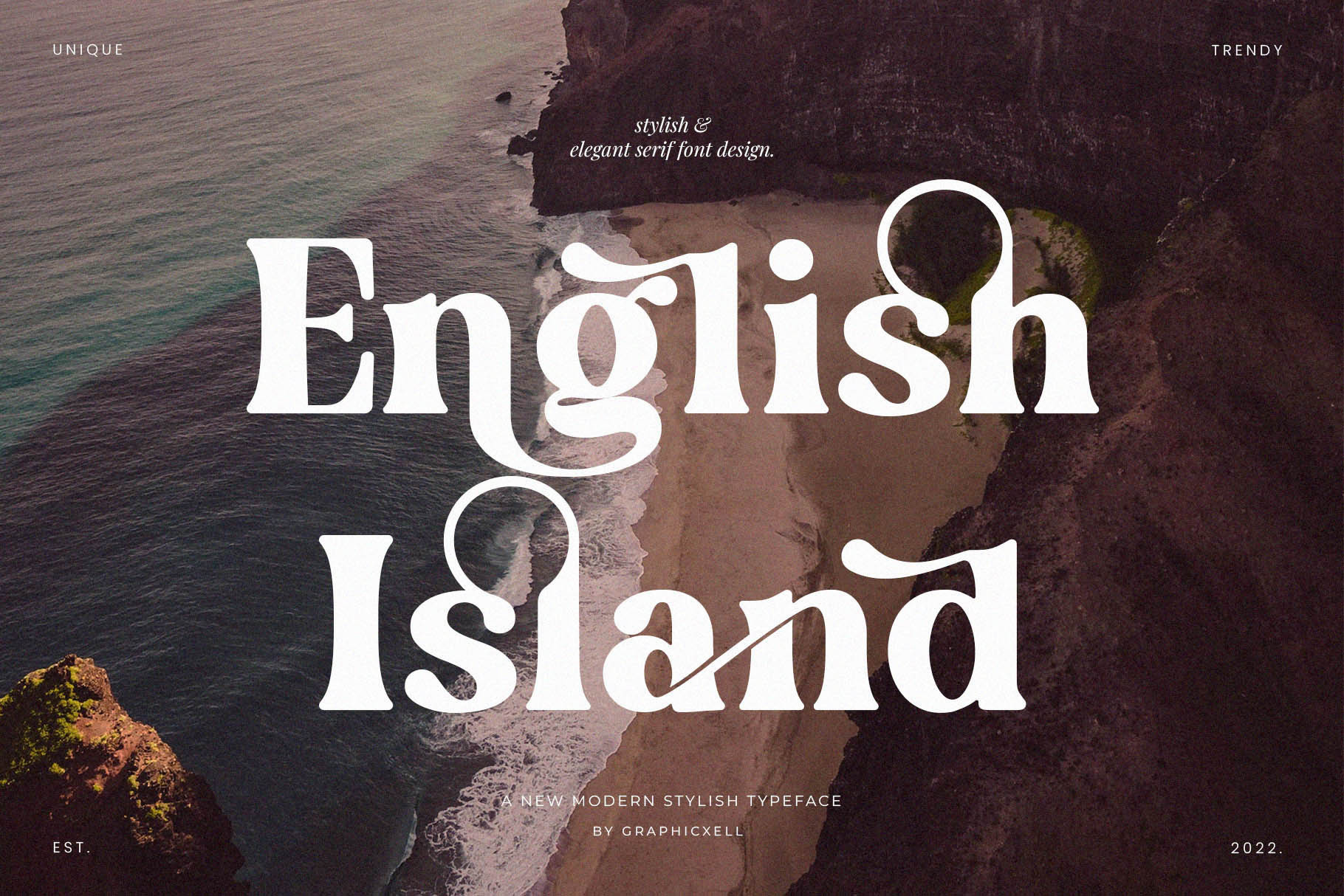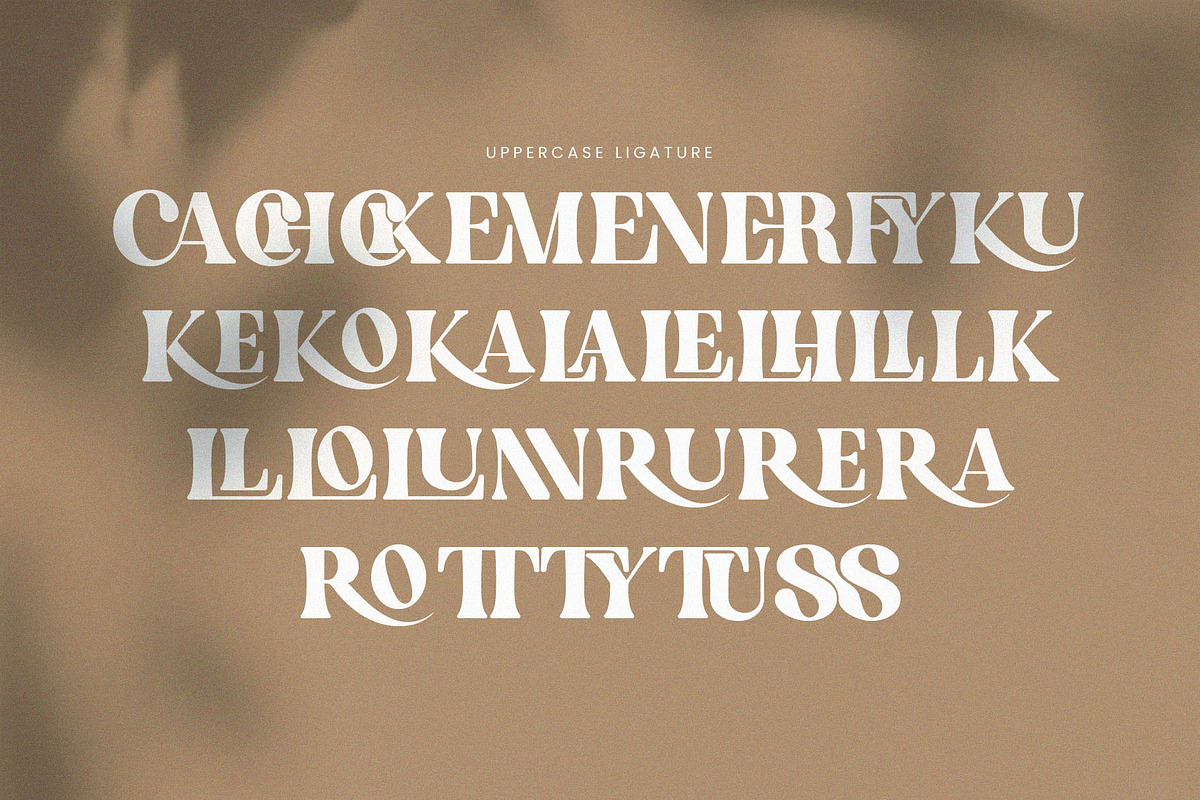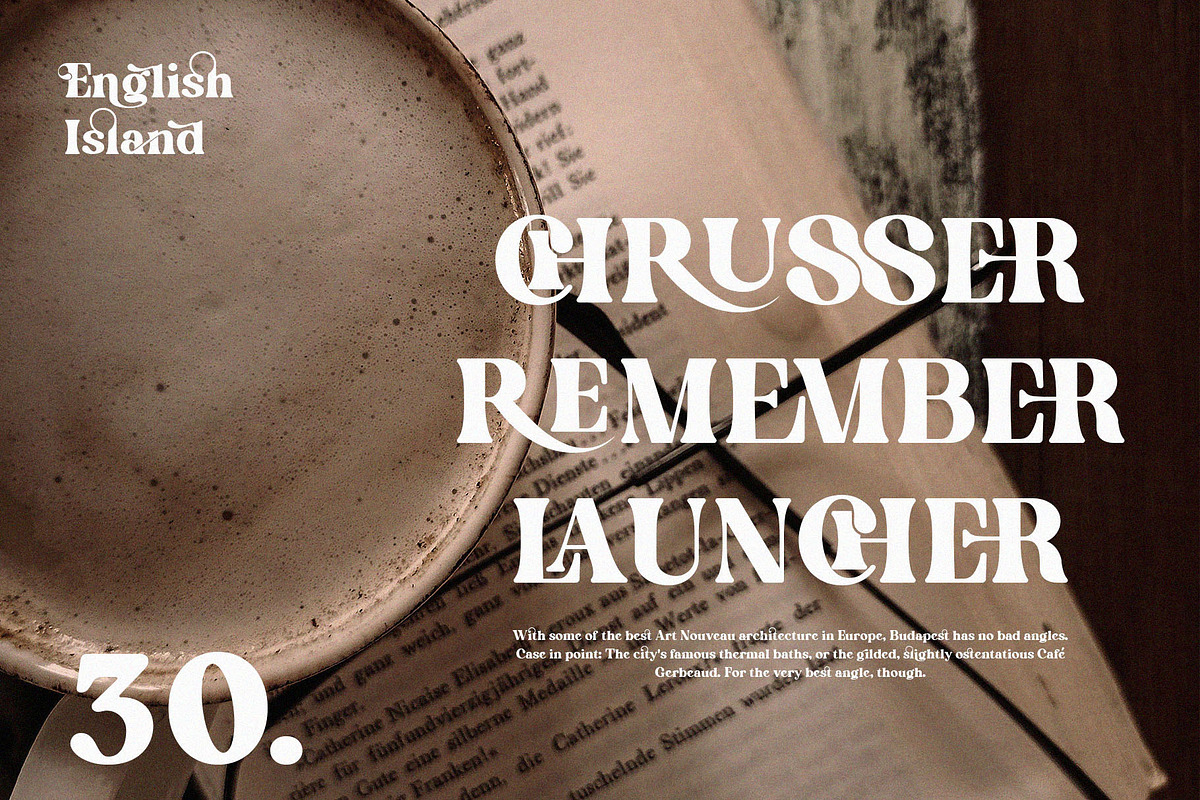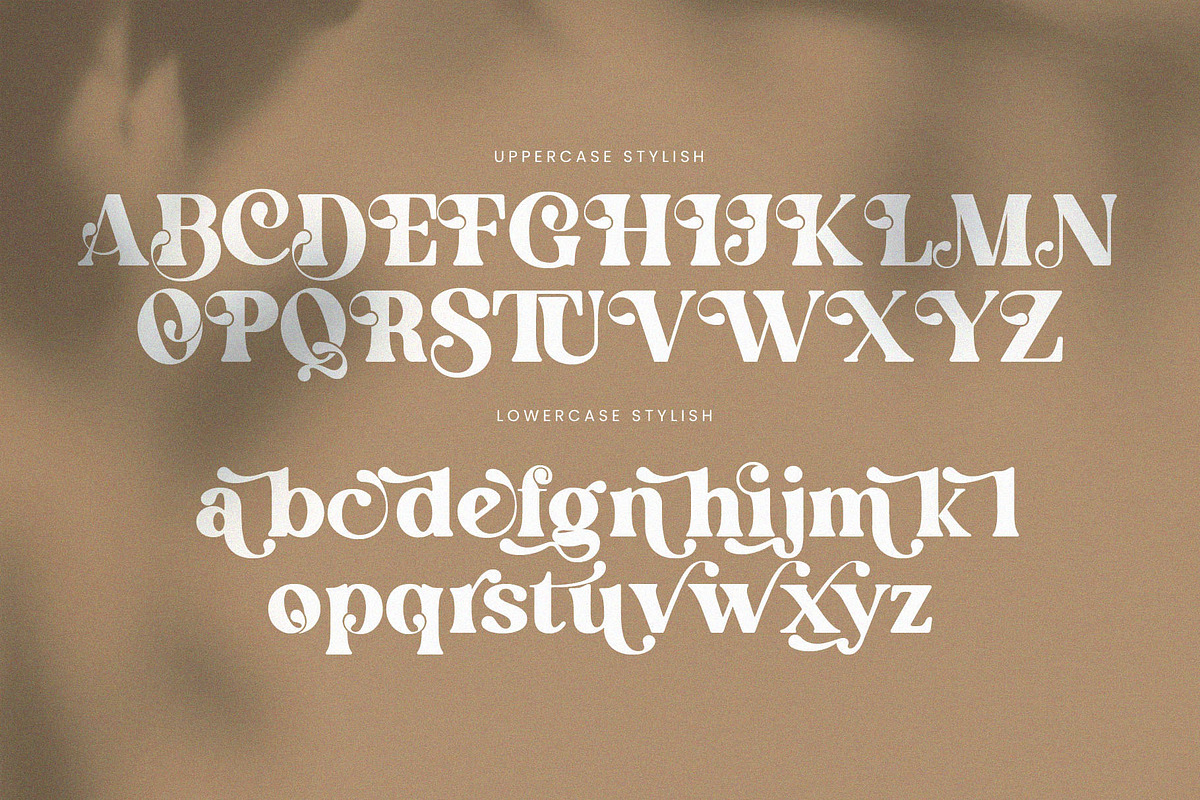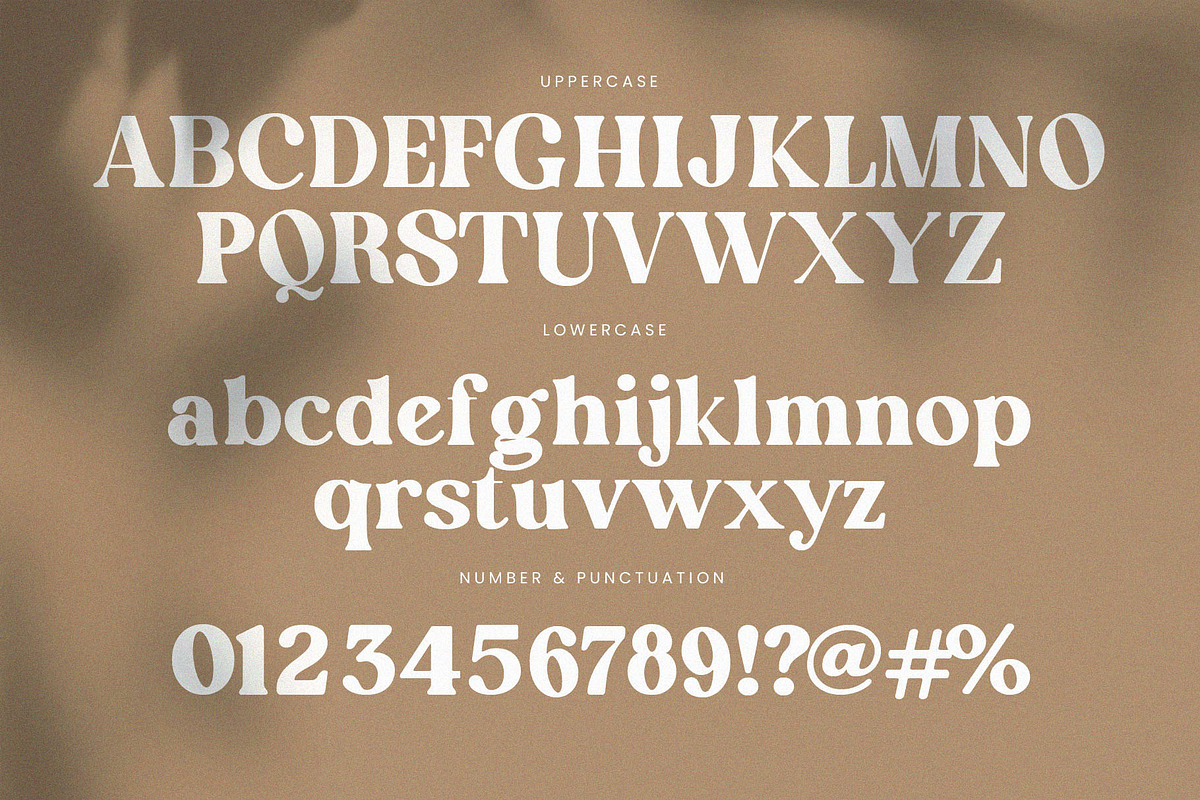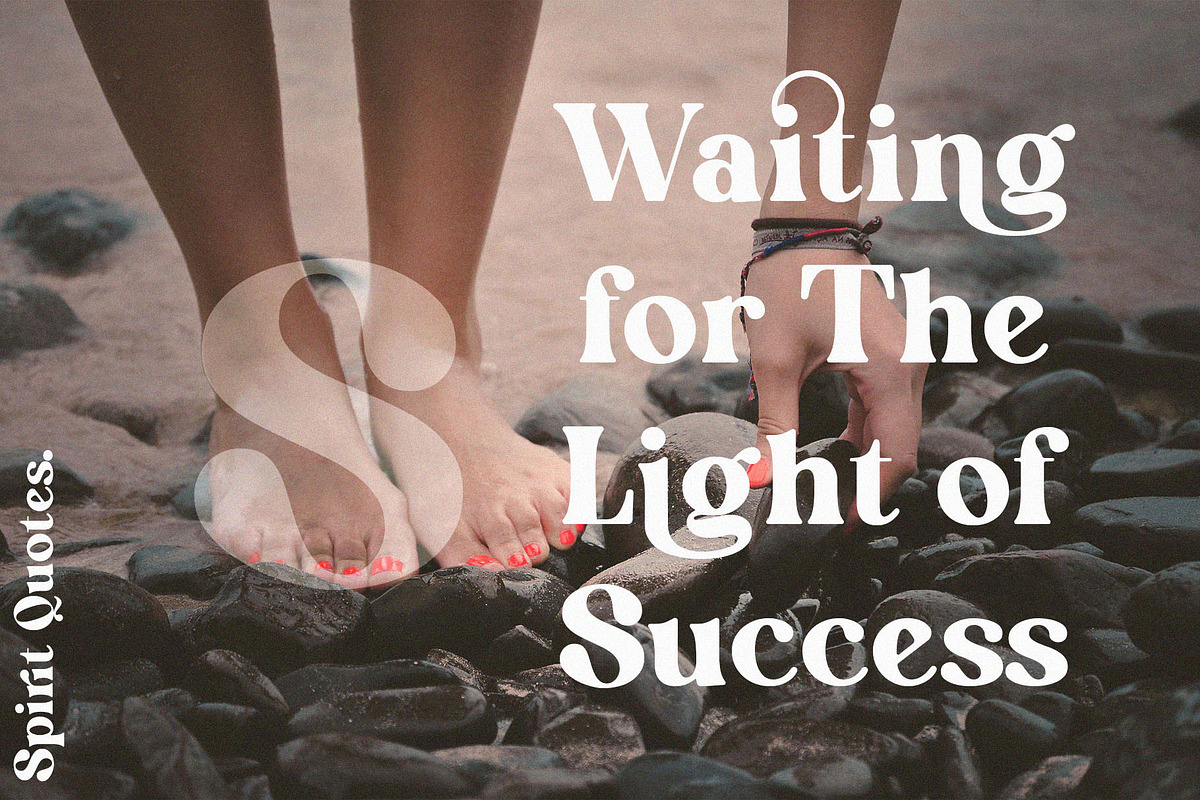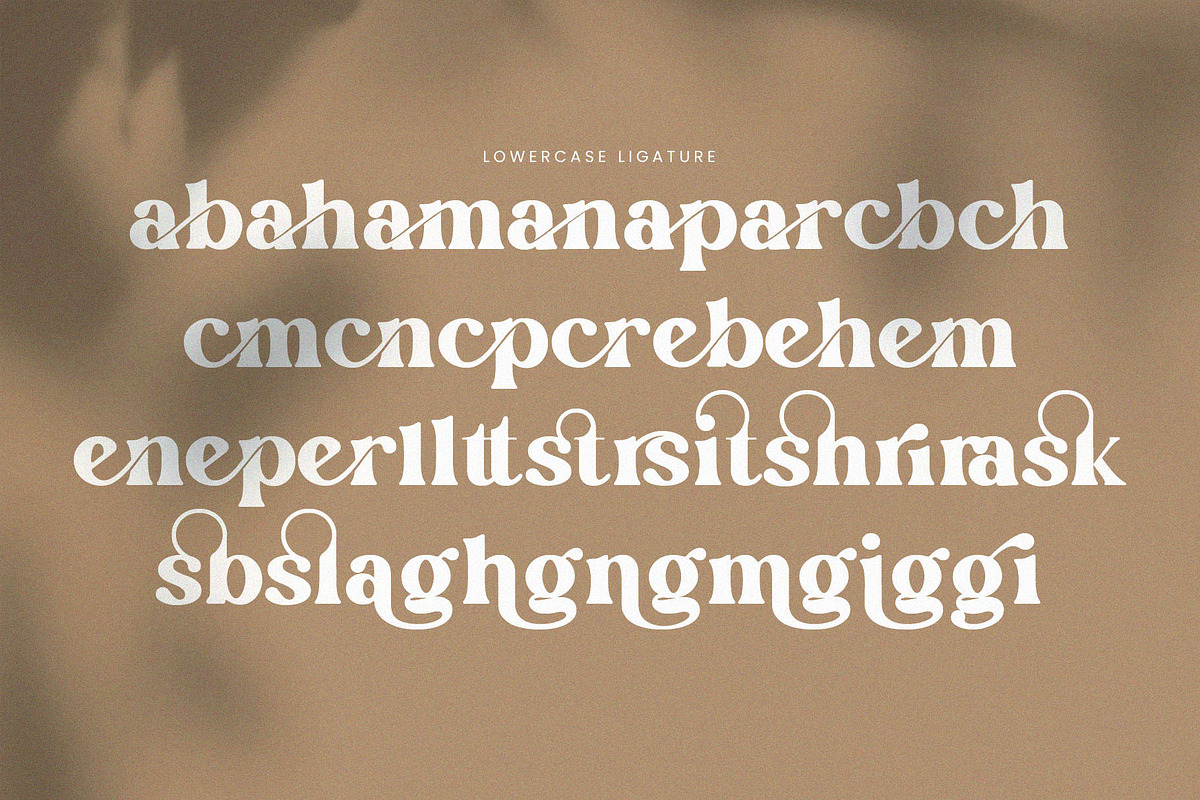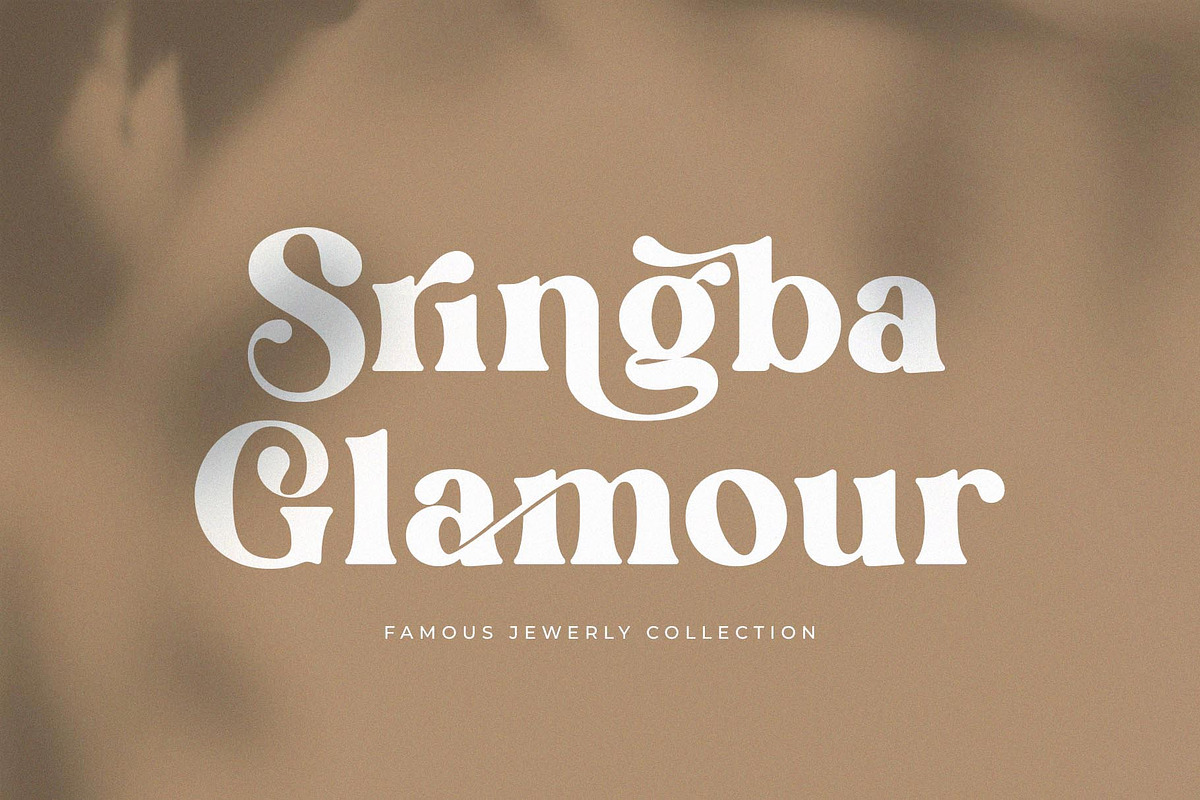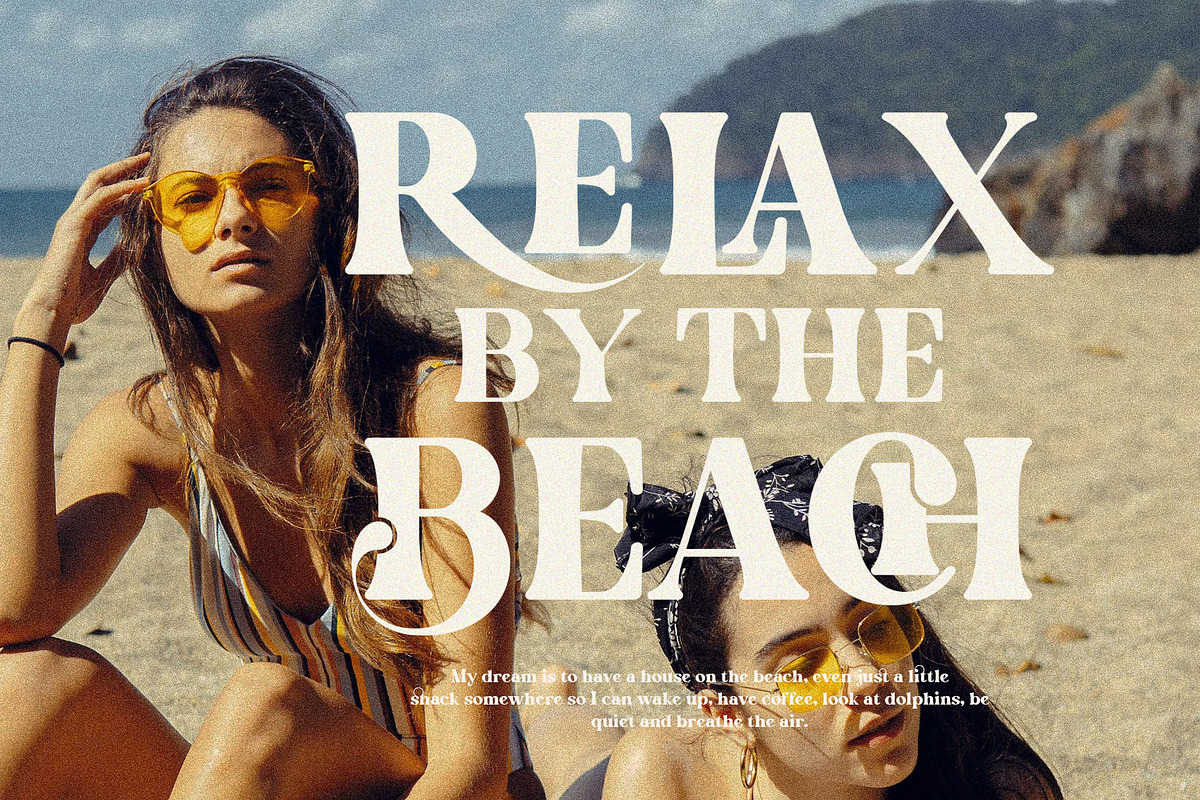
English Island Ligature Serif Font
English Island Ligature Serif Font inspired by the famous minimalist logo perfect for the purposes of designing templates, brochures, videos, advertising branding, logos, invitation, layout design, elegant crafting, beauty design and more.